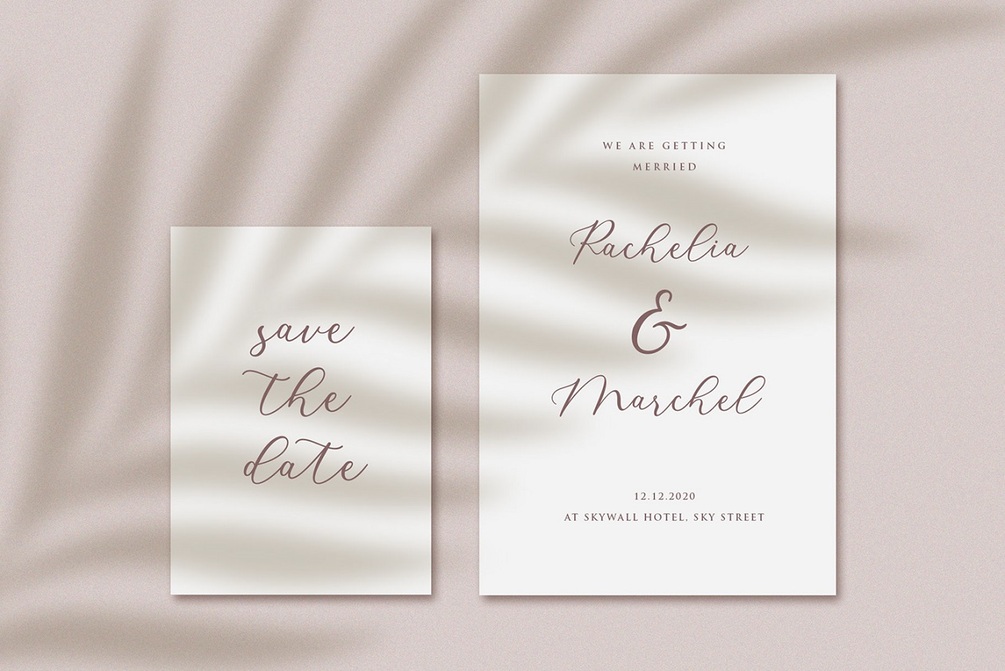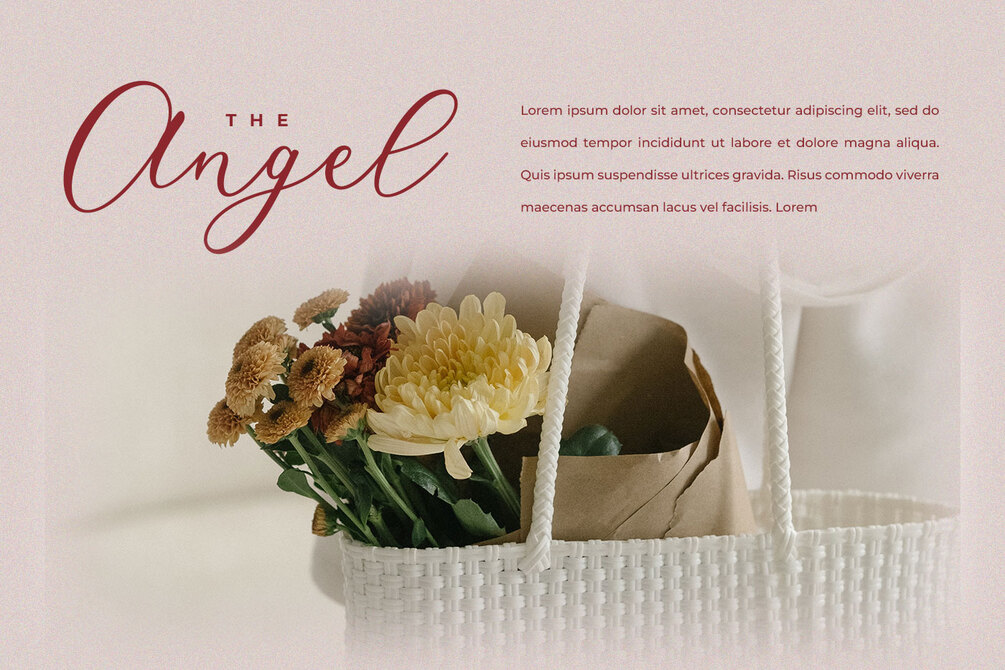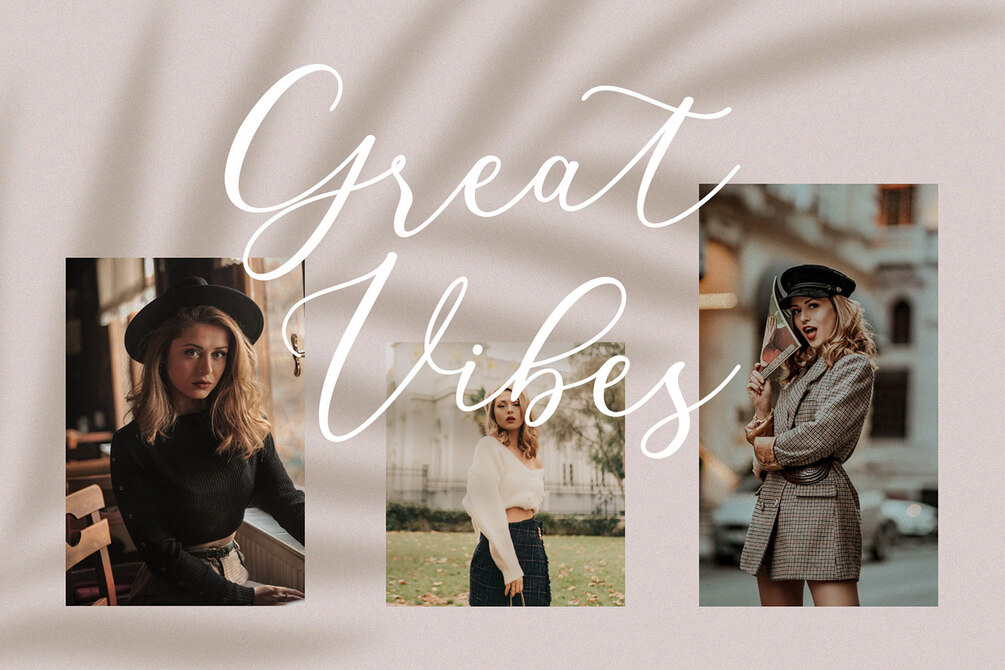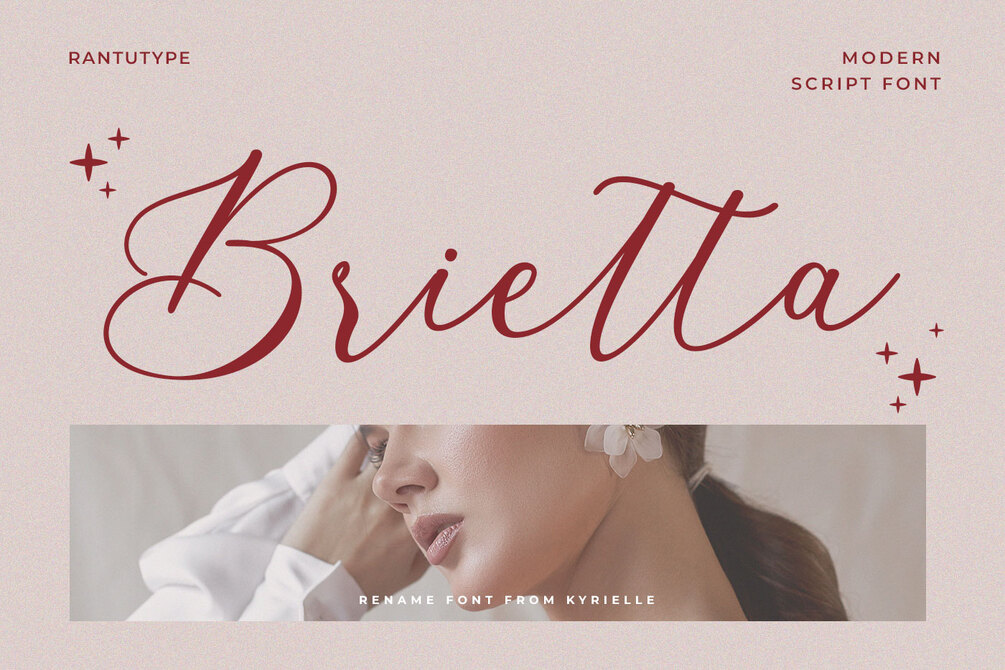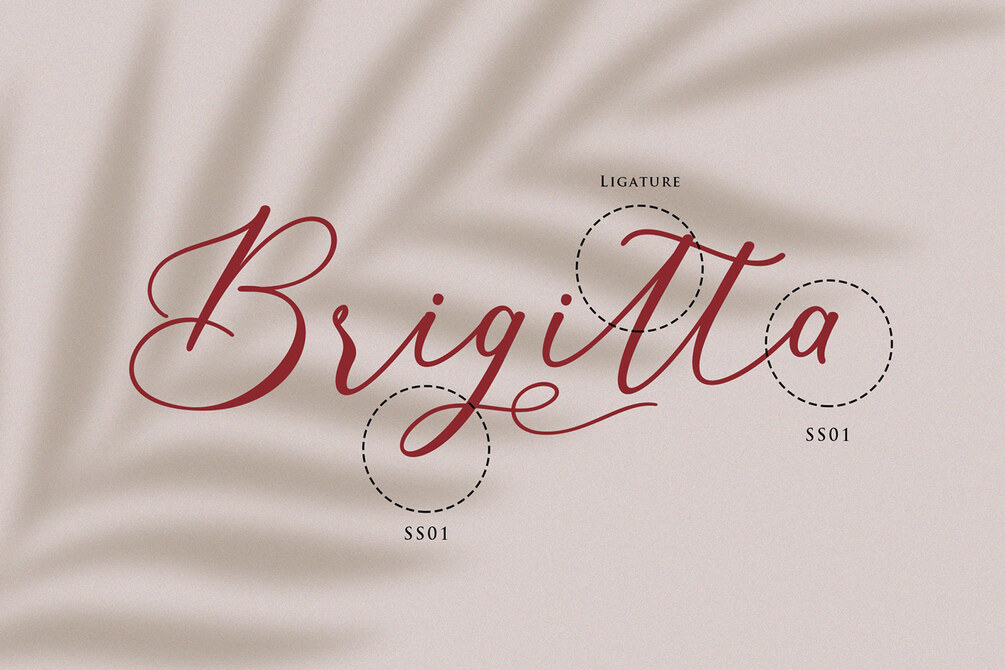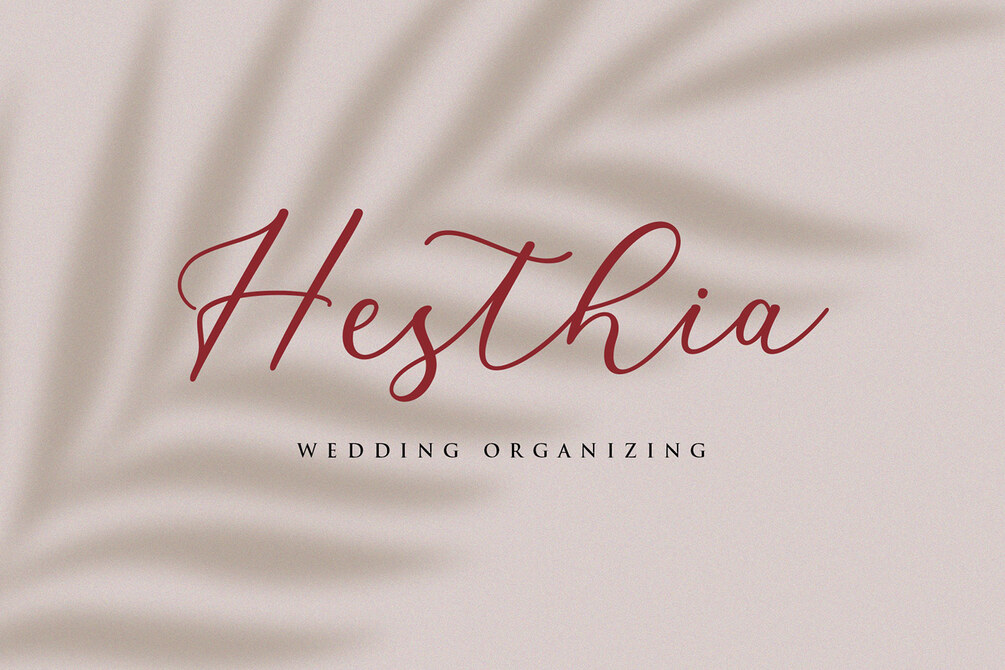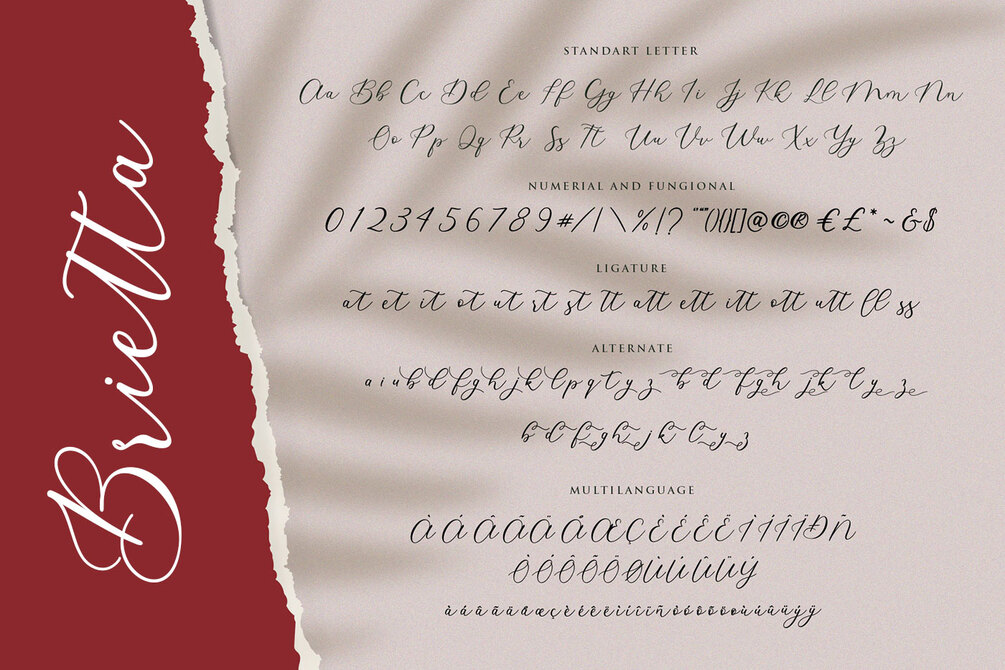
Brietta Calligraphy Font
"THIS FONT IS RENAME FROM KYRIELLE" The purpose of this change is to use a more familiar name among users and sorry if this name change confuses you.
Proudly present Another modern elegant script font “Brietta”.
Brietta is simple and elegant font which can be interpreted professional. I keep this font looks modern, feminine, girly, catchy, elegant and easy to use also already opentype feauture.
Brietta is the great choice for watermark on wedding organizer, signature or signature logo design, quotes, album cover, business card and many other design project. Brietta is here to make your work or your business to high level!!!
- Basic Latin A-Z and a-z
- Numberial and Functional
- alternate and ligature
- opentype